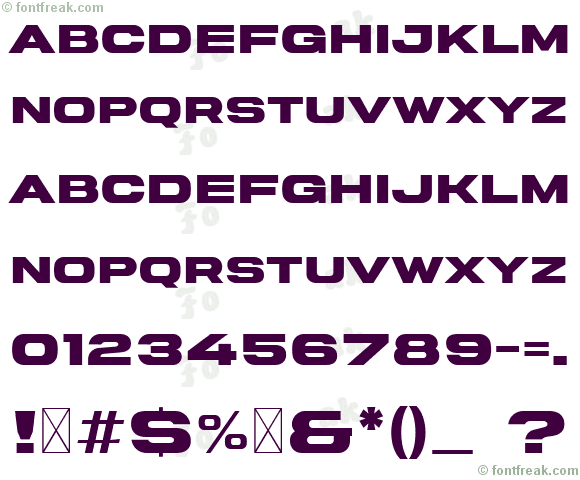
Rugen Expanded
Rugen Expanded, designed by Mukhlis Muhammad in 2022, is a striking display typeface that falls under the category of sans-serif fonts. This font captures attention with its bold, expanded letterforms, characterized by a consistent stroke weight that conveys a sense of strength and modernity. The design features minimal contrast, allowing for a clean and cohesive visual appeal, while the ample spacing between letters enhances legibility, making it suitable for various applications.
The Rugen Expanded font shines in multiple contexts, making it an ideal choice for graphic designers, small business owners, and content creators alike. Its robust appearance is perfect for crafting impactful movie posters, where boldness is essential to capture audience interest. Additionally, it can be effectively used in signage for restaurants or cafes, giving a contemporary touch to menus and promotional materials. The font's distinctive style also makes it an excellent option for branding projects, where uniqueness is key to standing out in a competitive market. Moreover, it works well for attention-grabbing headlines in digital and print media, ensuring that your message is both clear and visually appealing.
Targeting a diverse audience, Rugen Expanded offers versatility and modernity that appeals to those seeking a fresh font option. Whether you are designing for a startup or creating graphics for social media, this font provides the boldness needed to make a statement.